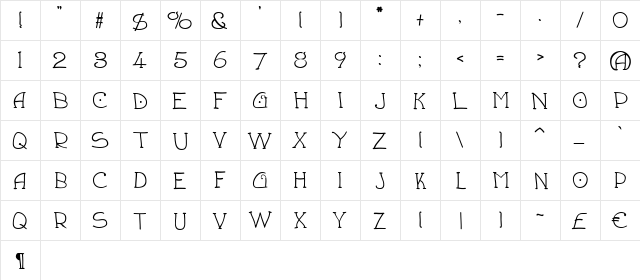
Draughtsman Normal Font Preview
Draughtsman Normal
Design Context for Draughtsman Typeface
Draughtsman is a composed and adaptable typeface that performs quietly and consistently across a wide range of design contexts.